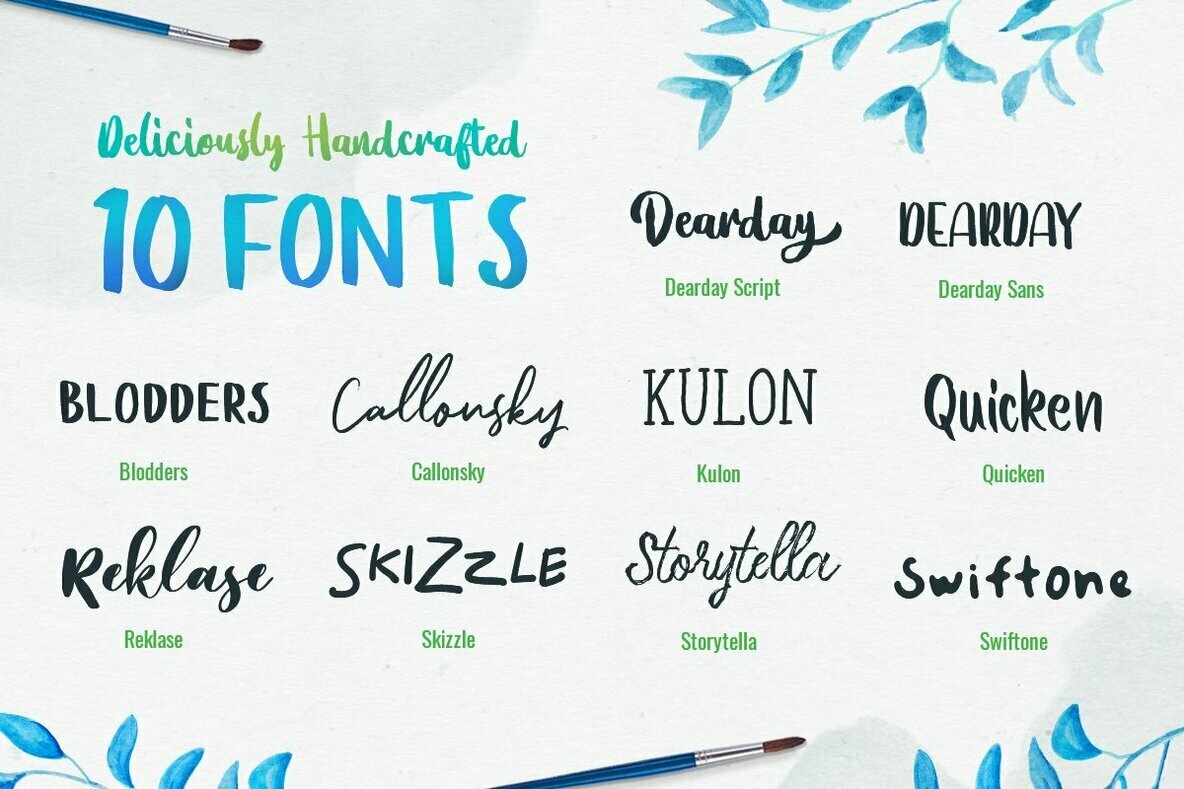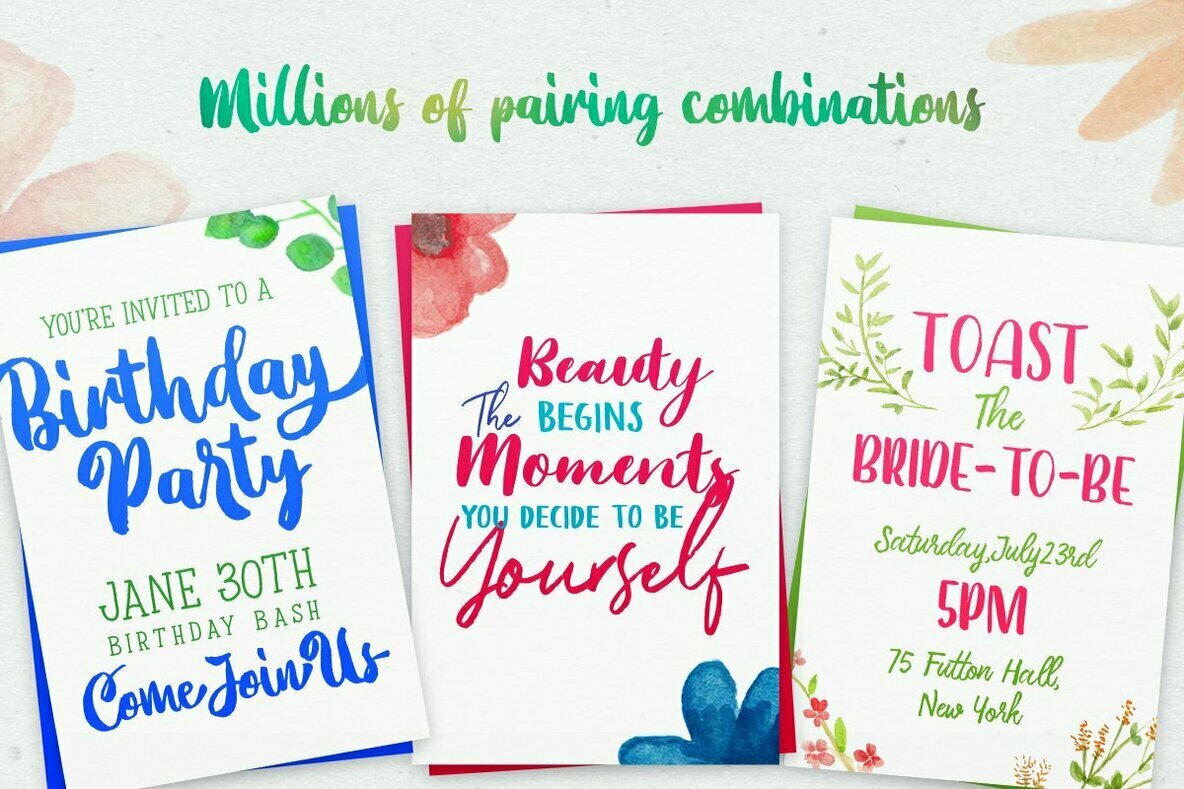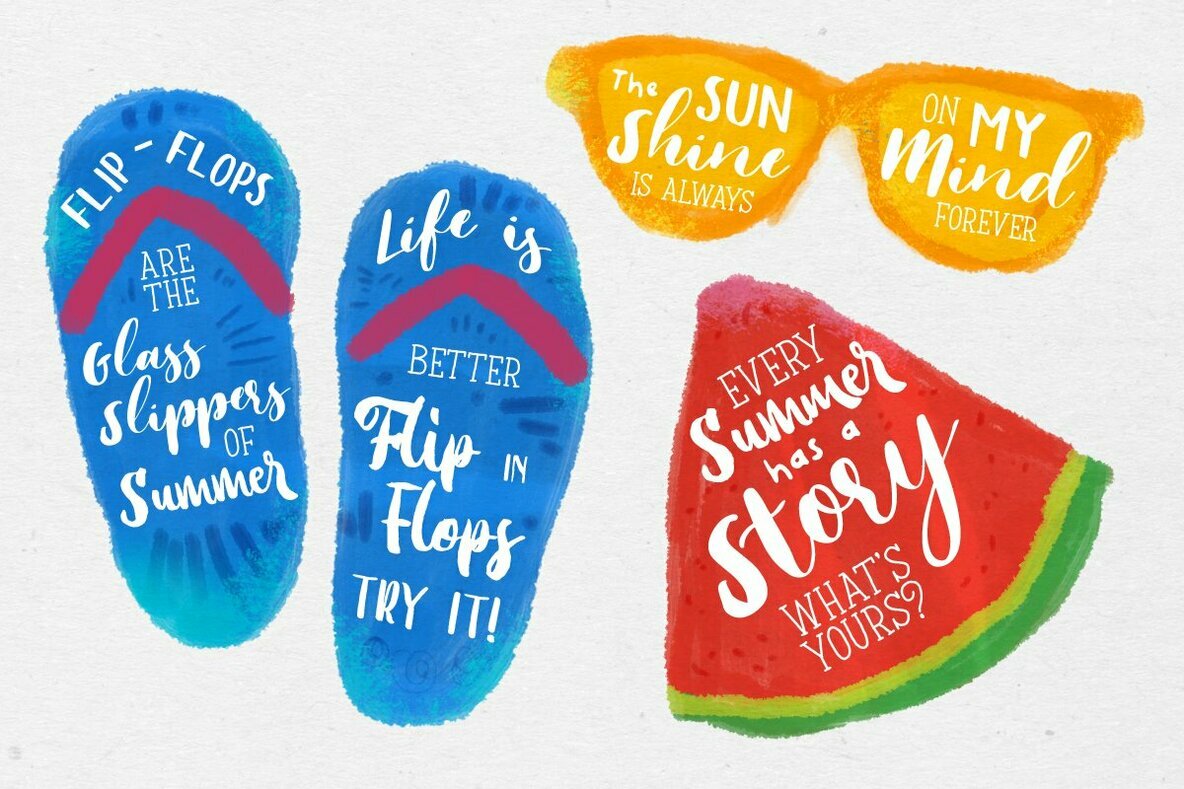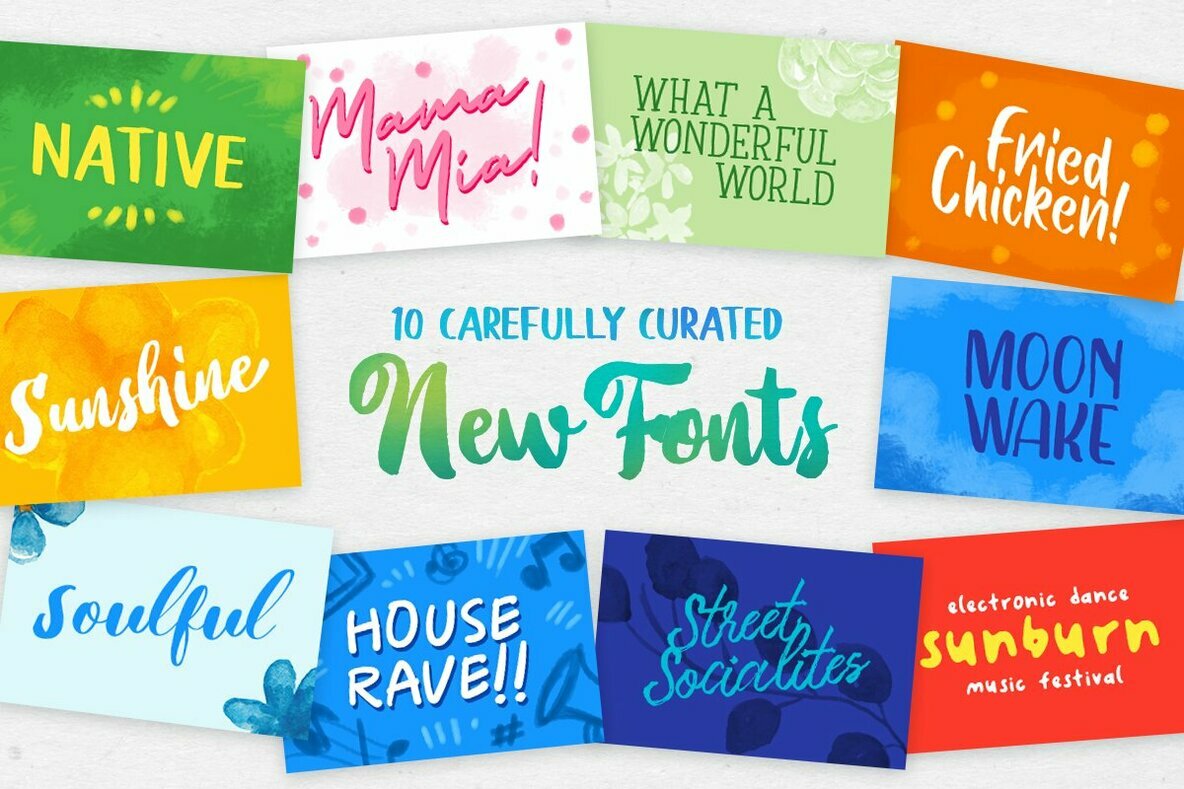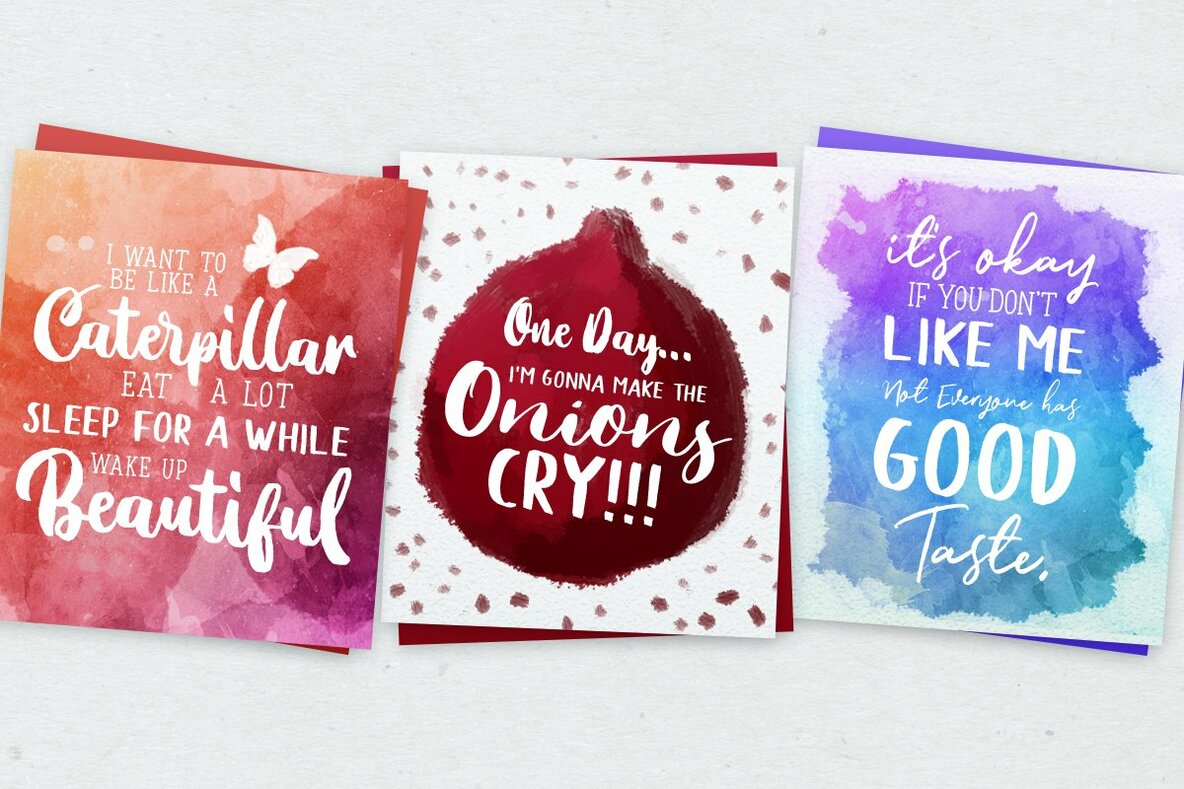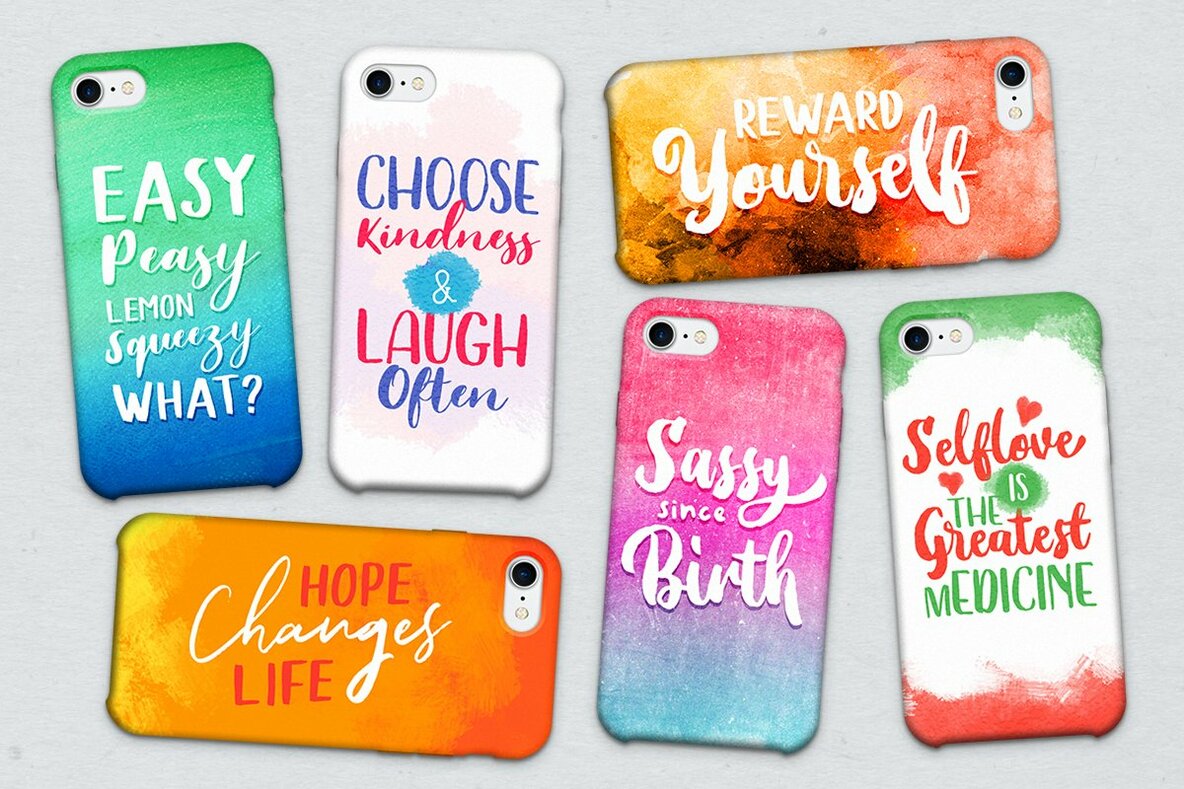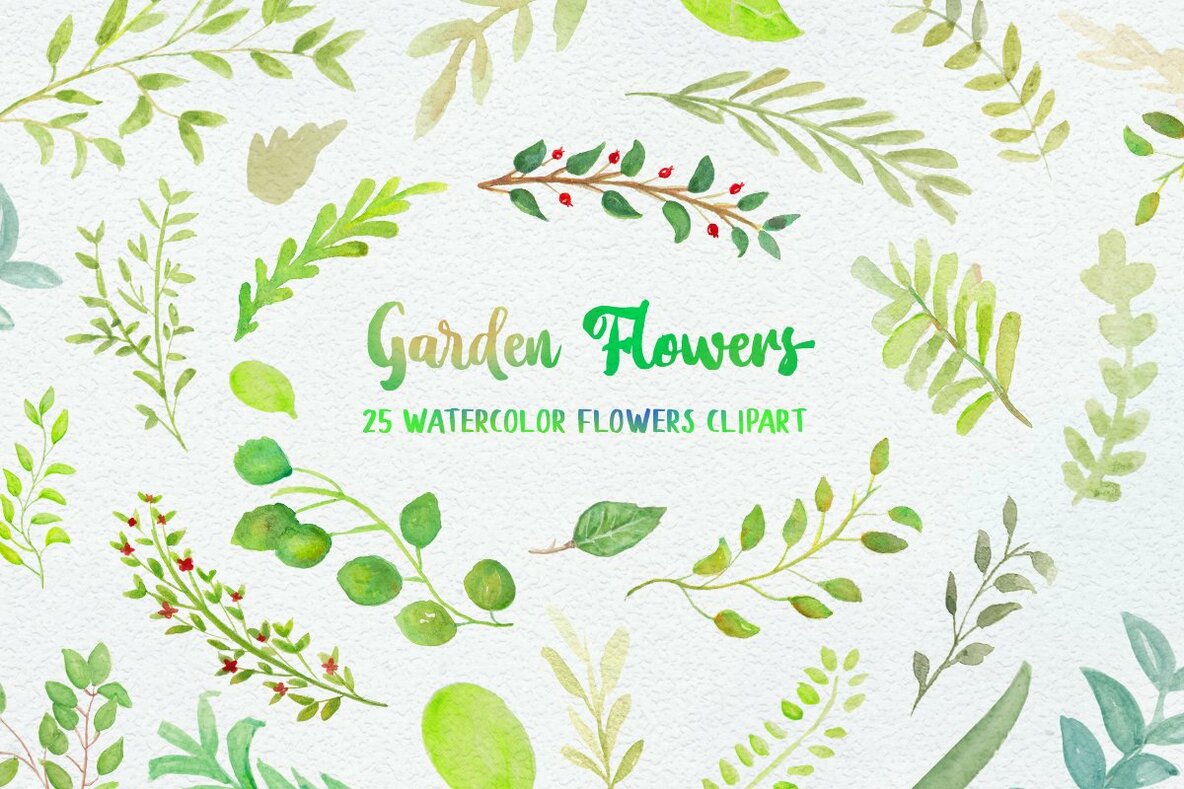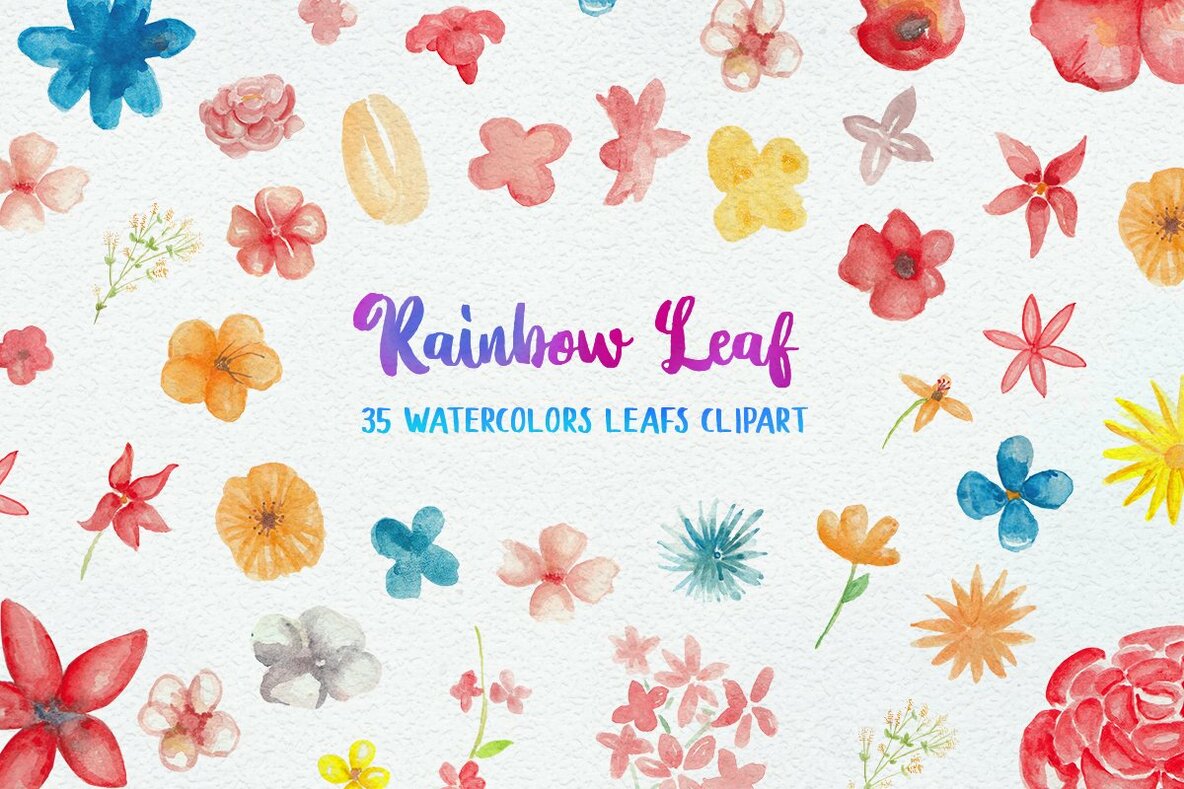
DearDay Watercolor Toolbox Font
DearDay Watercolor Toolbox! Yes, it is a toolbox. The reason why I named it as a toolbox is because you will get tons of item in one product!
This product will contain 10 fonts and 60 hand-drawn watercolor illustration in png! Yeah you hear it right! This product will provide anything you need to create a lovely watercolor art. Just mix and match the fonts and then you can get a beautiful lettering that you can use in any media you want! Very suitable for wedding invitation, greeting cards, merchandise, apparel, poster / print design, etc.